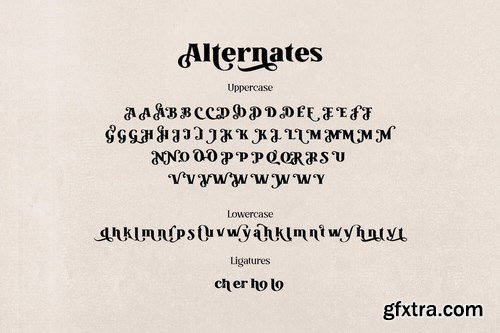
Allaina is a Modern, Stylish and Elegant serif family consisting of three styles, regular, medium and bold with italics. It has many alternates and some unique attractive ligatures.
This versatile serif family could be used for fashion design to Elegant vintage or Victorian style lettering. Combine standard letters with alternative letters, you will get beautiful and unique words that you can use as a wedding invitation, valentine theme, Display, Label, heading, poster or a Logo. To access alternative letters we recommend using Adobe Illustrator or Photoshop, but we also provide alternate character maps that you can copy and paste into your favorite programs.